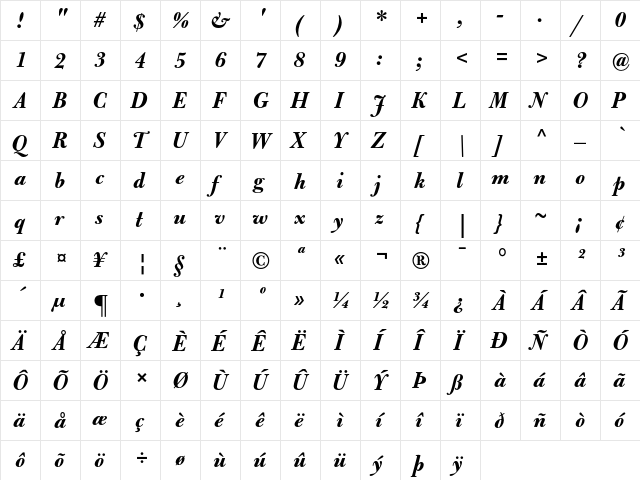
Bulmer MT Bold Italic
Design Context for Bulmer MT Typeface
Bulmer MT offers clean, dependable letterforms without strong stylistic allegiance, making it a practical choice for designers who need flexibility. The dynamic lean of this cut emphasises speed and emphasis in any layout. The heavy weight commands attention and anchors typographic hierarchies.
Pro Tip: Use Bulmer MT for emphasis, pull quotes, and subheadings where its slanted energy can add rhythm to the layout.